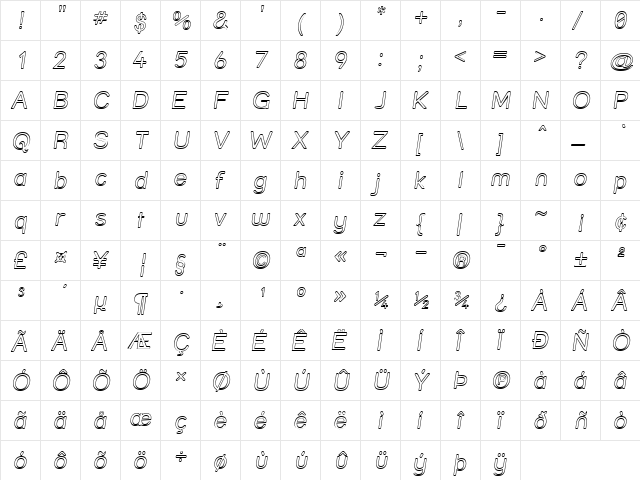
Street Outline Italic
Design Context for Street Outline Typeface
Street Outline is built around its visual character rather than neutral utility — its distinctive forms are designed to make an impression at display sizes. The slanted form adds forward momentum and visual energy.
Font Pairing: Pair with a clean neutral sans-serif for body copy to let Street Outline's character lead without overwhelming the composition.
Pro Tip: Use Street Outline exclusively at display sizes — it was designed to be seen, not read at length. Let a neutral companion handle body copy.